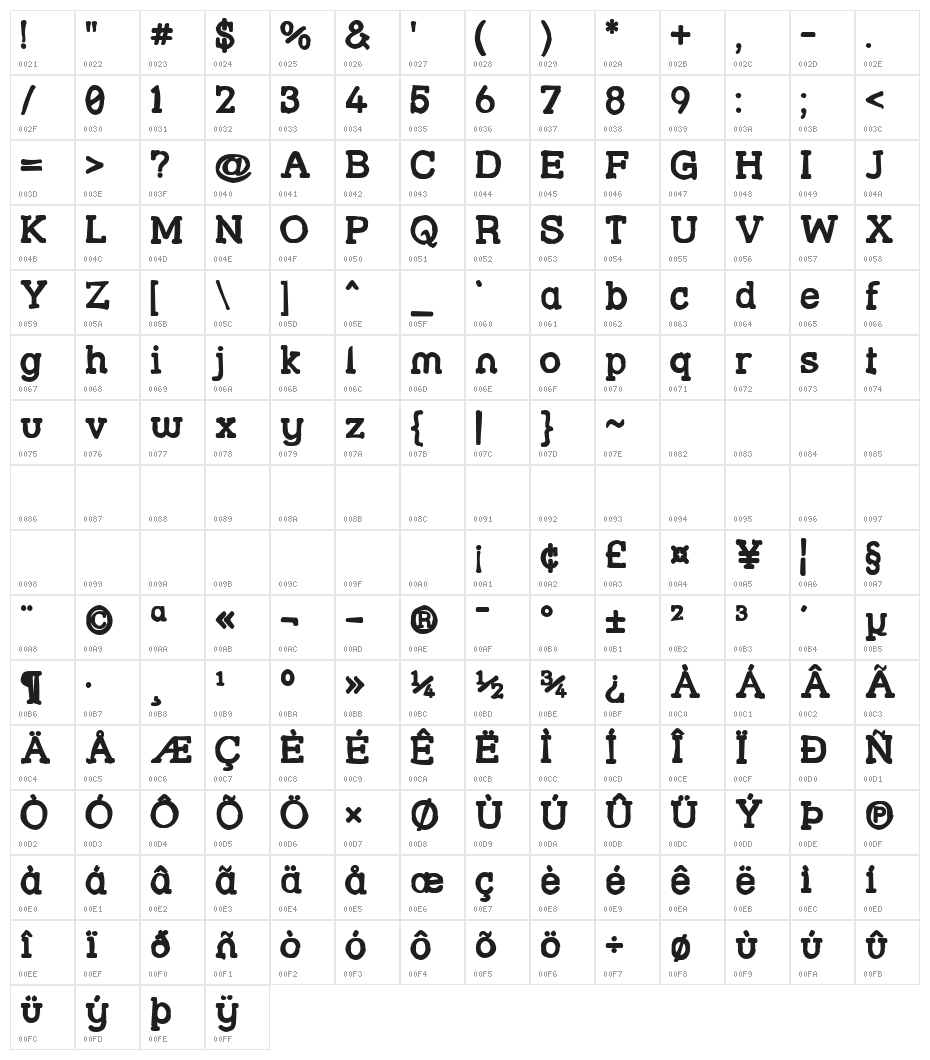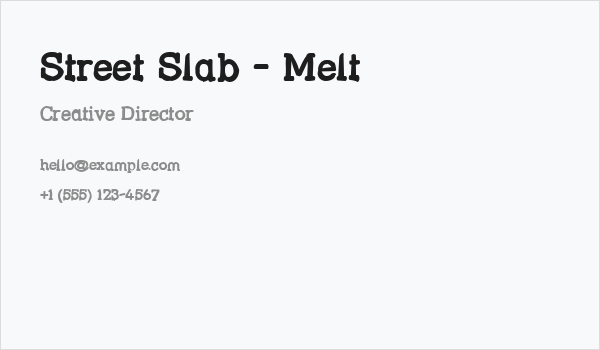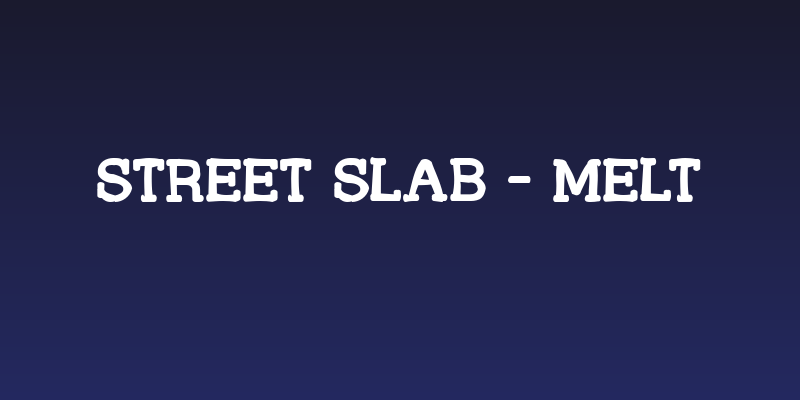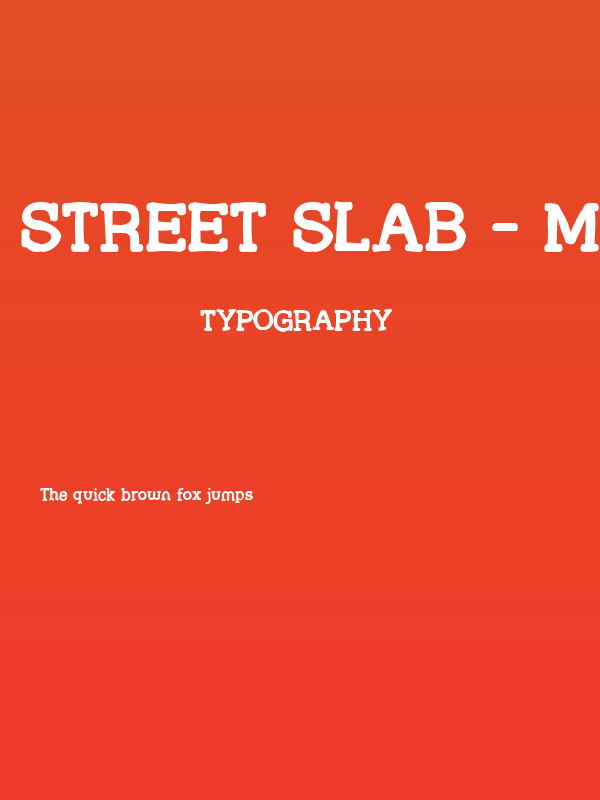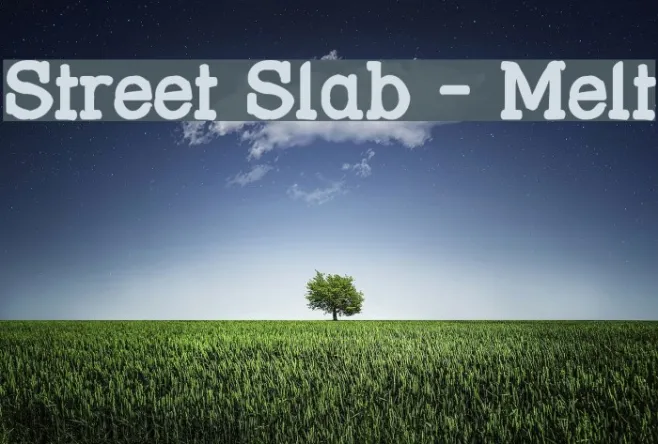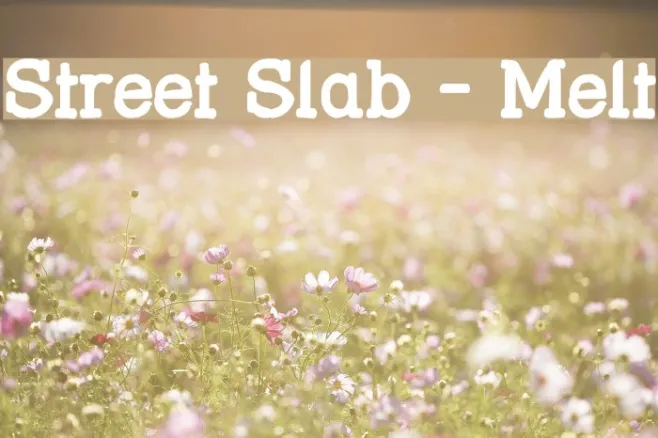
Street Slab - Melt Font
Street Slab - Melt Description
This font features a bold and playful slab serif style with rounded edges, giving it a friendly and approachable appearance. The thick strokes and uniform weight across characters create a strong visual impact, making it ideal for attention-grabbing designs. The uppercase and lowercase letters maintain a consistent height, while the numerals and special characters are designed to complement the overall aesthetic. The font's unique character shapes and rounded serifs add a touch of whimsy, making it suitable for creative and informal projects.
| Overall Style | Playful, Modern |
| Proposed Projects | Ideal for posters, children's books, branding, and playful design projects. |